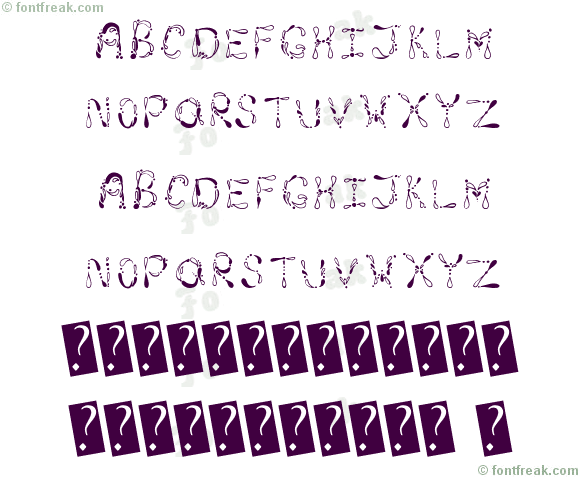
LubeSplash
LubeSplash is a unique display font designed by Xerographer Fonts, released in 2012 as freeware. This font falls under the decorative category, characterized by its playful and whimsical style. Its visual appeal is created through a combination of irregular stroke weights and a dynamic arrangement of characters that evoke a sense of fun and creativity. The overall design features a mix of rounded and sharp elements, giving it a lively and engaging appearance.
The LubeSplash font is particularly well-suited for a variety of creative applications. It shines in contexts that require a touch of personality, such as wedding invitations, where its charming traits can add a memorable flair. Additionally, it can be effectively used in movie posters, capturing attention with its bold and distinctive look. Restaurant menus can also benefit from LubeSplash, making dishes stand out while enhancing the overall dining experience. Content creators will find it ideal for social media graphics, where its unique style can help convey brand identity and attract followers.
Targeted primarily at graphic designers, small business owners, and content creators, LubeSplash offers versatility for anyone looking to infuse their projects with a touch of originality. The font’s free download option makes it accessible to a wide audience, encouraging experimentation and creativity.
What sets LubeSplash apart is its ability to blend fun with functionality. Its quirky design elements make it a memorable choice, while its versatility ensures it can be used across various mediums. Whether you are designing a playful flyer or a sophisticated invitation, LubeSplash brings a unique quality that elevates any project to new heights. Embrace the charm of LubeSplash font free download and let your creativity flow.